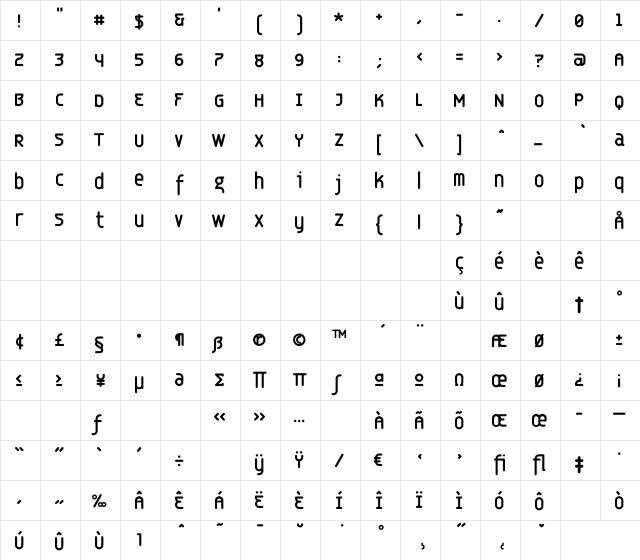
Eunuch Standard
| Foundry | theTYPEfetish/Michael Wallner |
| Designer | Michael Wallner |
Design Context for Eunuch Typeface
Eunuch is a composed and adaptable typeface that performs quietly and consistently across a wide range of design contexts.